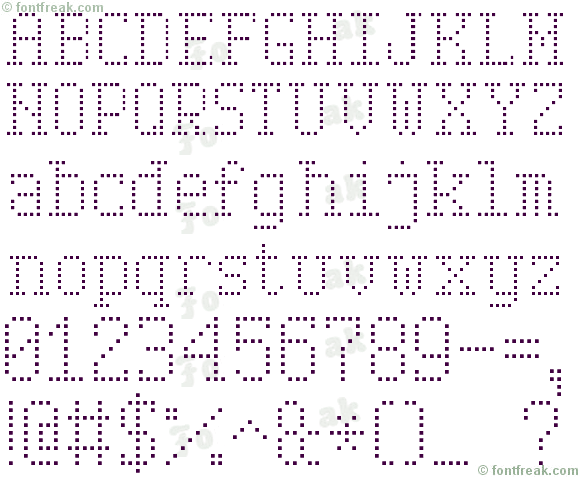
Serif Dot Digital-7
About Serif Dot Digital-7
Serif Dot Digital-7 is a unique serif typeface designed by Style-7 that blends digital aesthetics with classic serif characteristics. This font features a distinctive dot pattern that gives it a contemporary edge while maintaining the elegance typical of serif fonts. The stroke weight is consistent, creating a balanced appearance, while the dots add a playful yet structured element to the design. The spacing between characters is well-considered, ensuring readability while enhancing its visual appeal.
This font is particularly well-suited for a variety of creative applications. Its modern yet refined look makes it an excellent choice for technology-oriented branding, digital artwork, or any project that requires a blend of sophistication and a hint of whimsy. Graphic designers might find it ideal for website headers, product packaging, or promotional materials. Additionally, small business owners can utilize Serif Dot Digital-7 for eye-catching social media graphics and advertisements that stand out in a crowded marketplace. Content creators could also leverage this font for unique presentation slides, online articles, or even digital invitations.
What truly sets Serif Dot Digital-7 apart is its ability to merge traditional serif elements with a modern digital twist. This font is not just a typeface; it's a statement piece that adds character and uniqueness to any design, making it a valuable addition to your font library. For those interested, the Serif Dot Digital-7 font free download is available, allowing you to incorporate this distinctive typeface into your creative work.